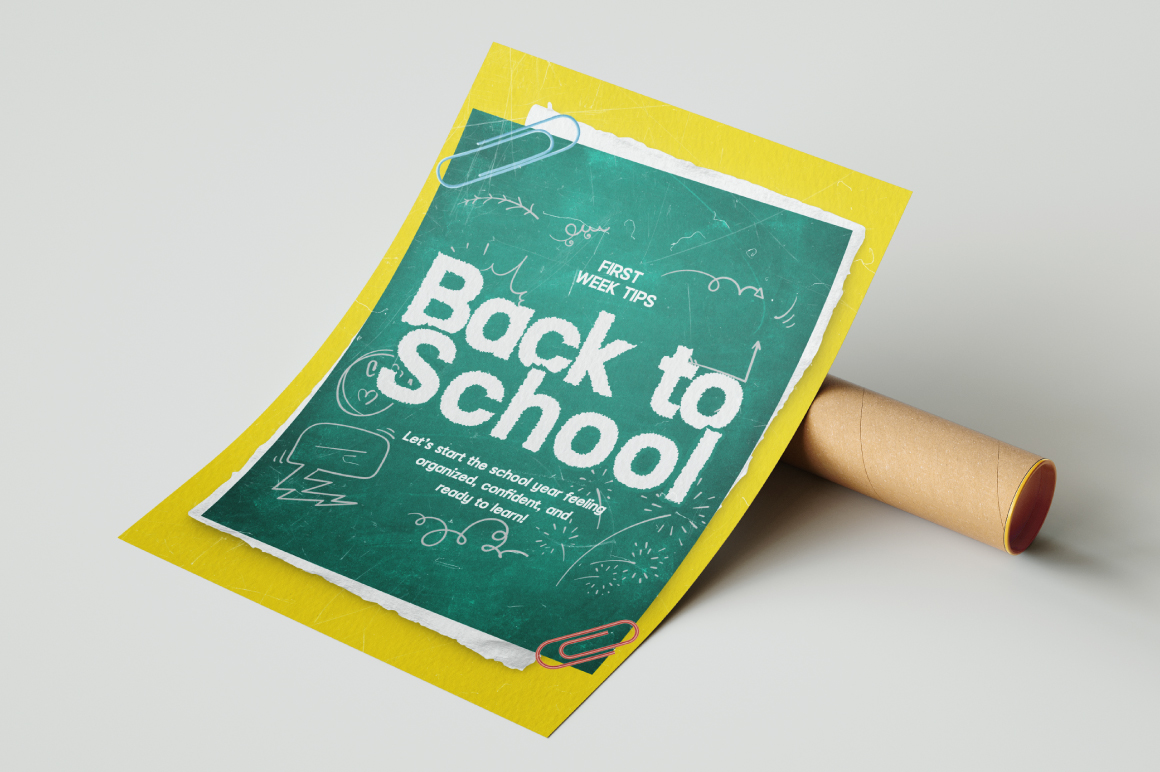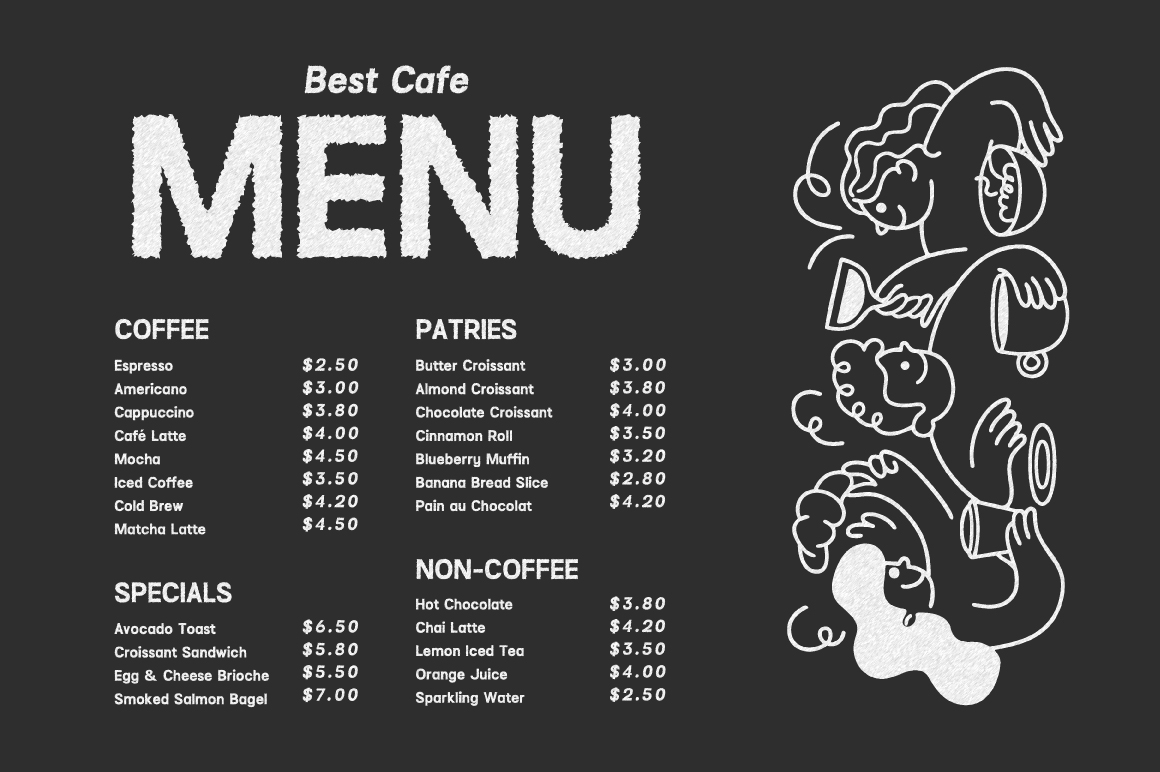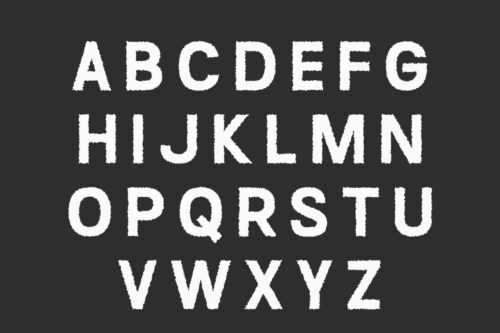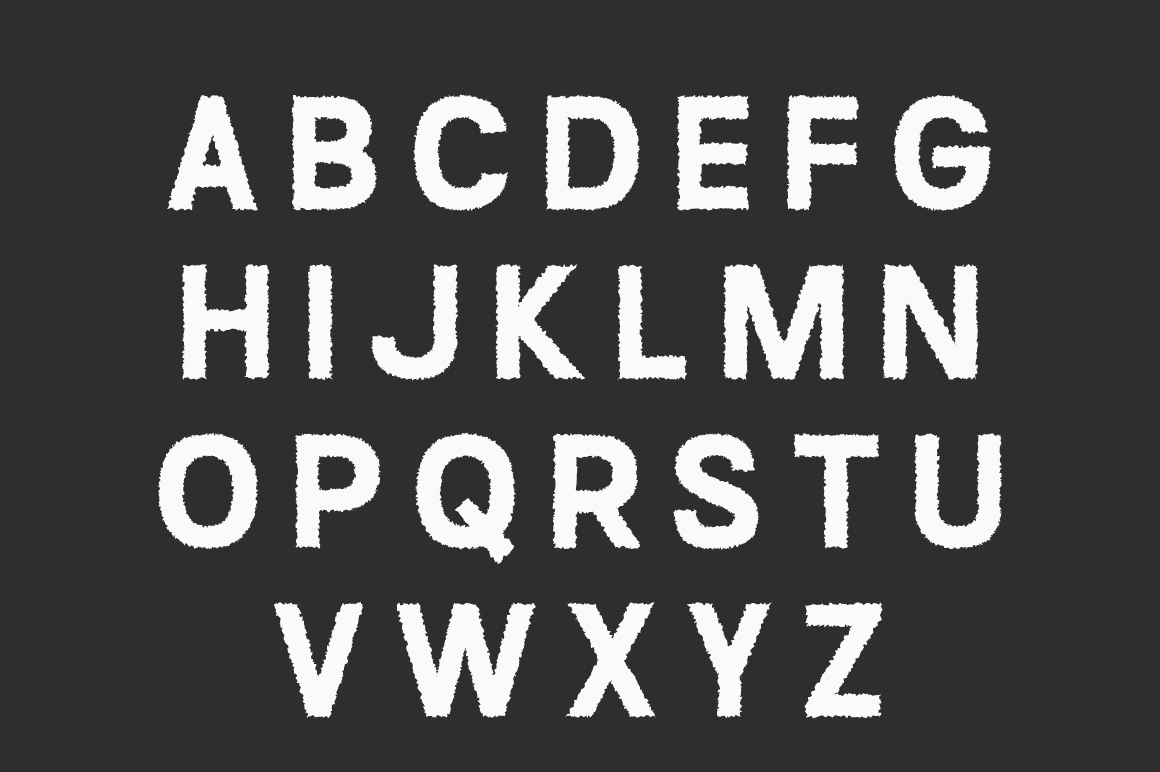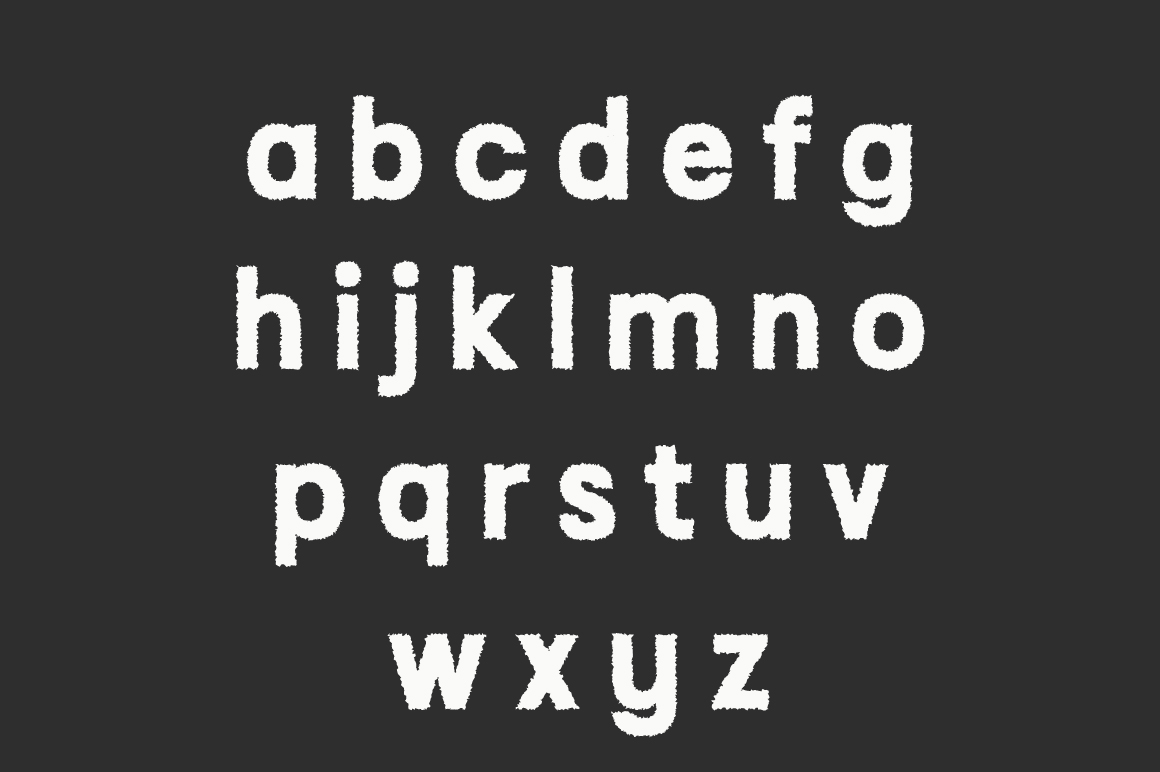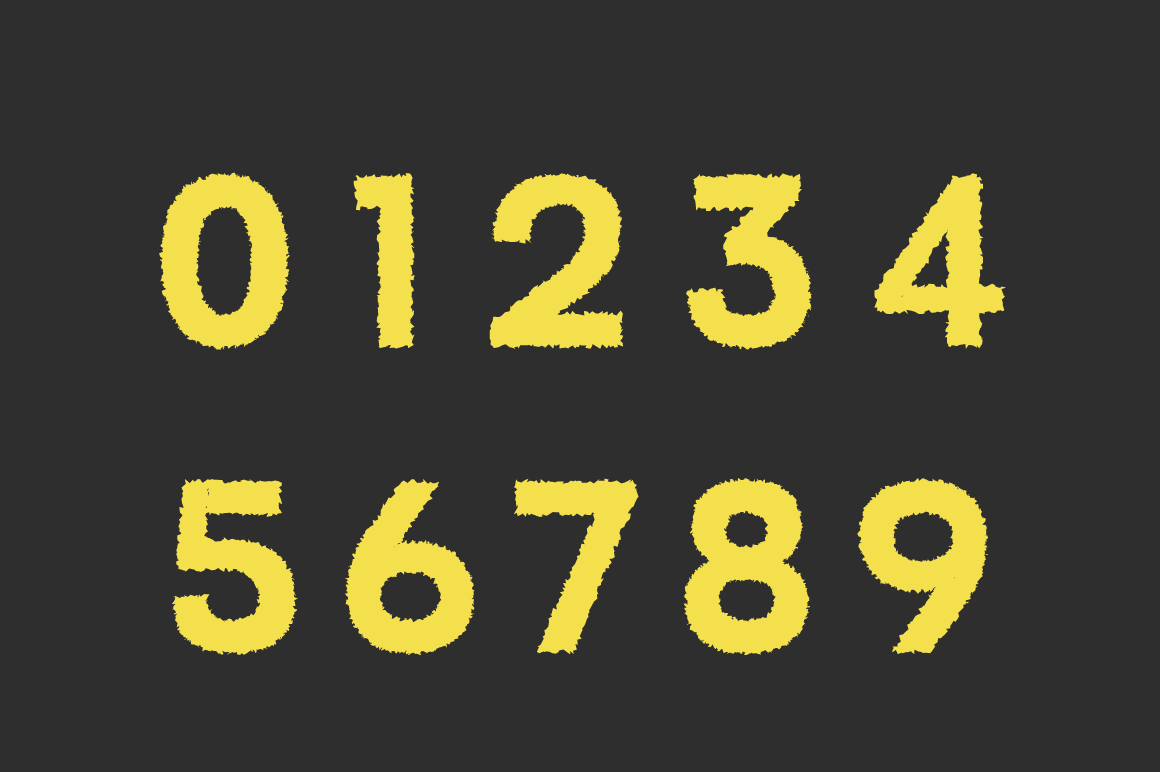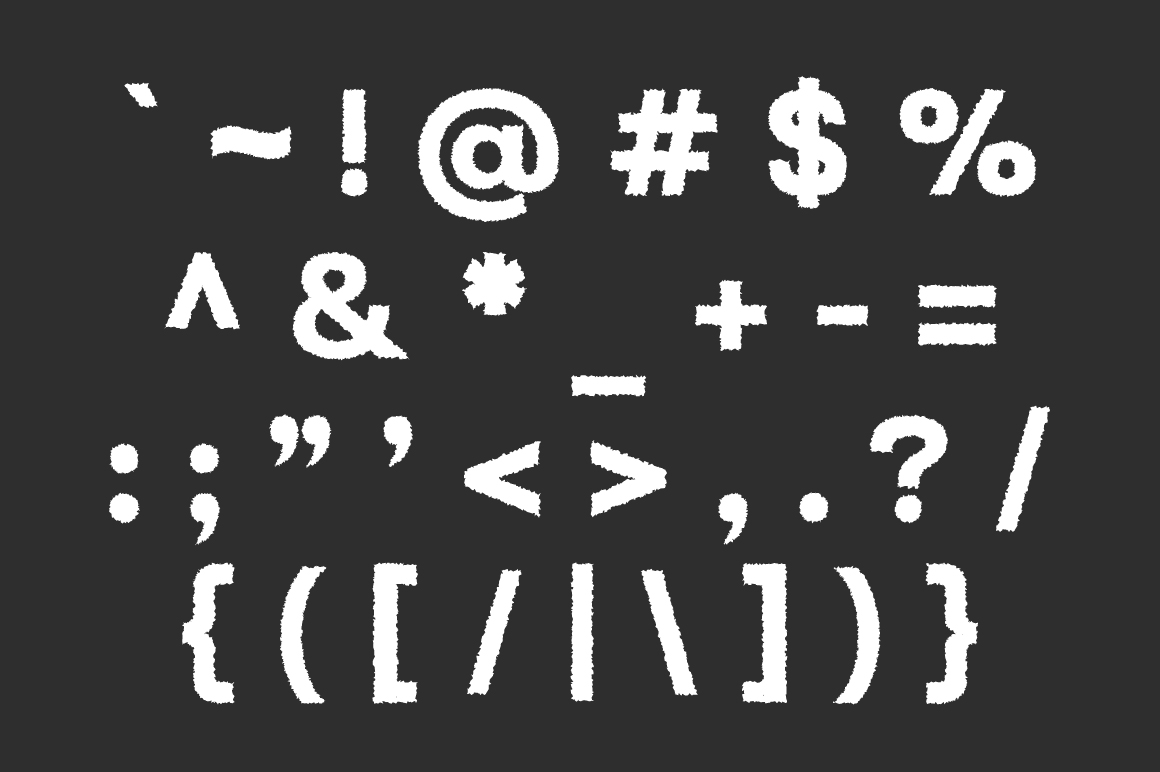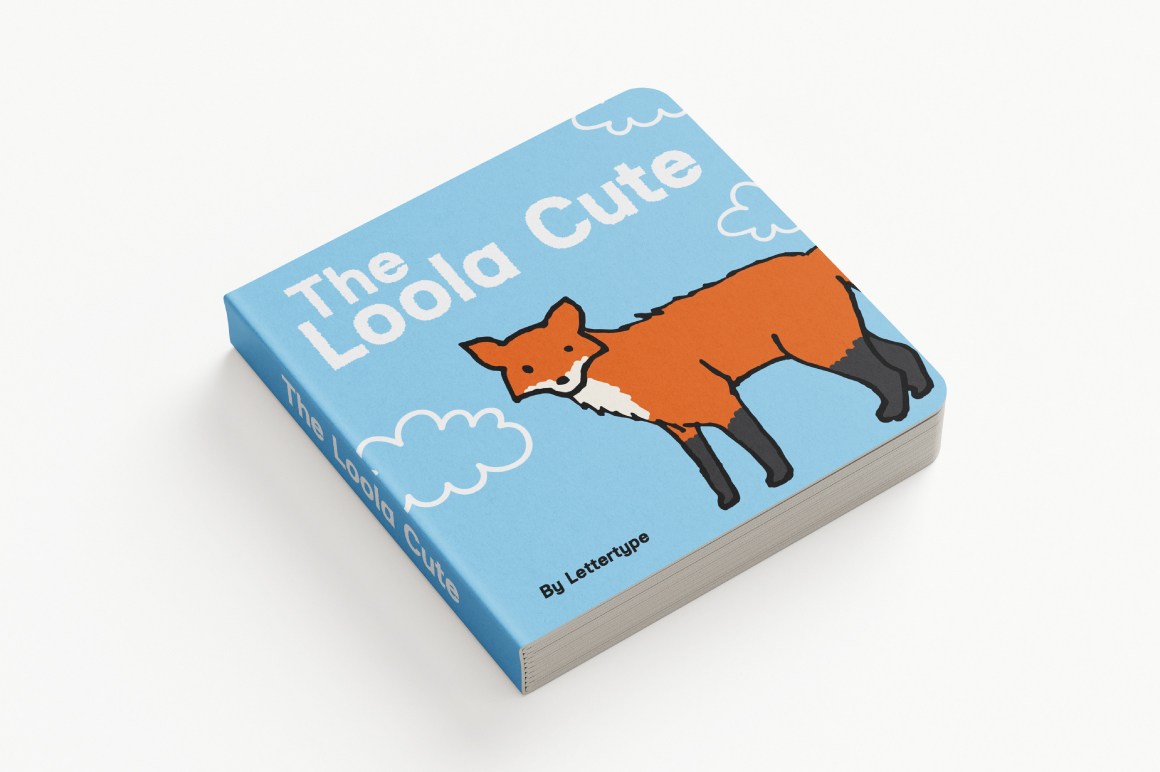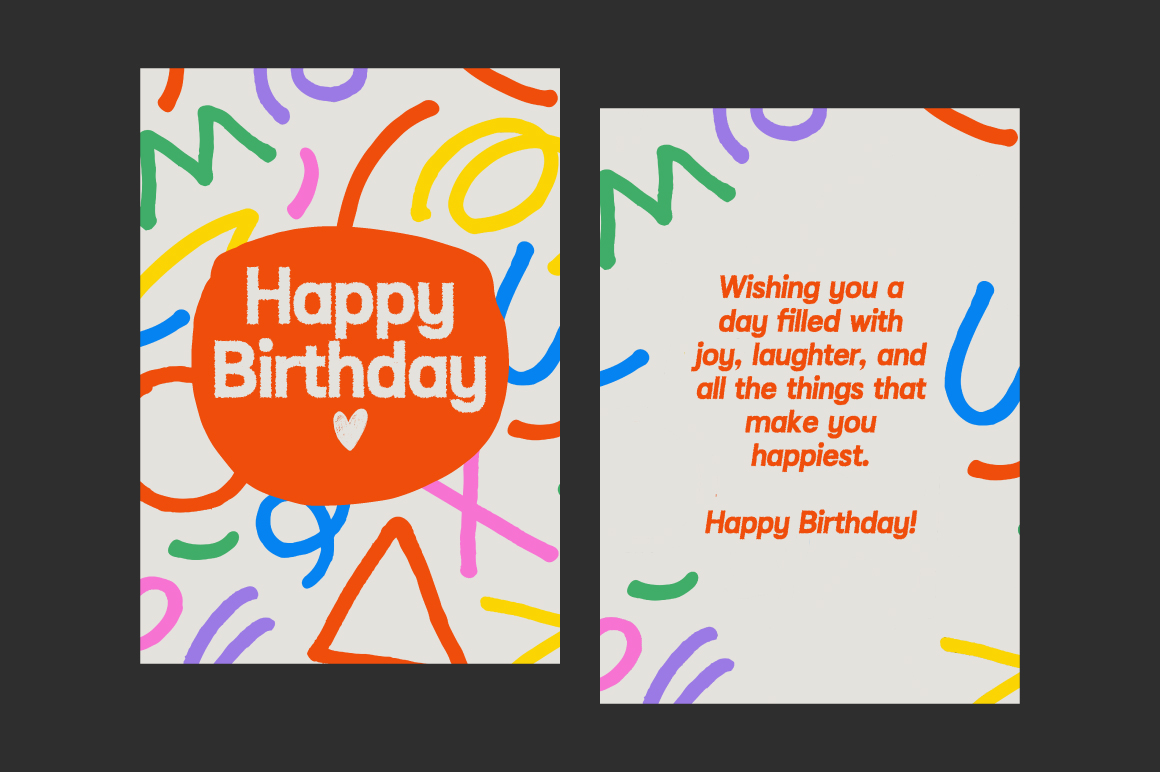
Chalk Sprouts
Chalk Sprouts Italic
Chalk Sprouts is a fun and energetic handwritten chalk font designed to bring life to your projects. With rough textured strokes that mimic real chalk on a blackboard, it’s perfect for educational materials, food packaging, children’s content, party invitations, and more. Its friendly and approachable vibe makes every word feel playful and organic.
Whether you’re designing for school, café menus, posters, or Instagram content, Chalk Sprouts adapts seamlessly. Multilingual support, alternate characters, and natural imperfections give it an authentic handmade look. Add a touch of creativity and lighthearted charm to your work with Chalk Sprouts.
Chalk Sprouts Features:
• 2 Styles
• Upright & Oblique
• 409 Glyphs Total
• 260+ Language Supports
• Kids’ product packaging and snack branding
• Playful logo and candy label design
• Children’s book covers and educational materials
• Party invitation, birthday cards, and posters
• Instagram content, crafts, and DIY design themes